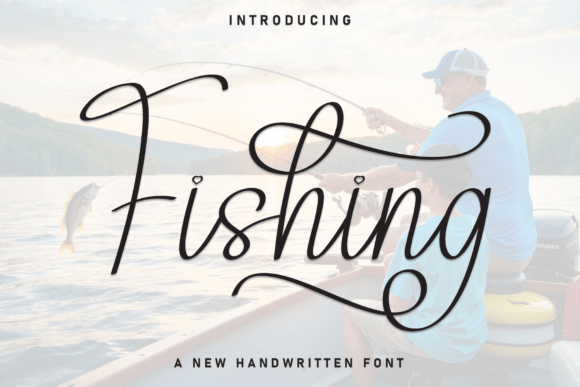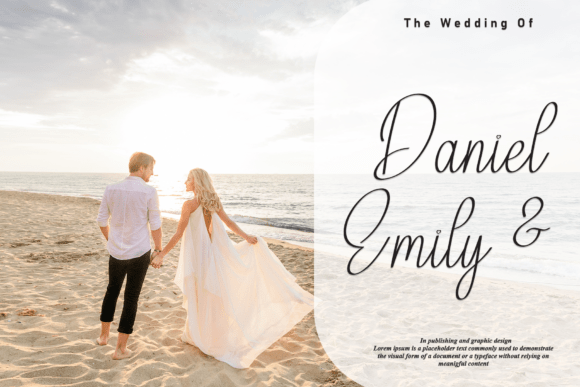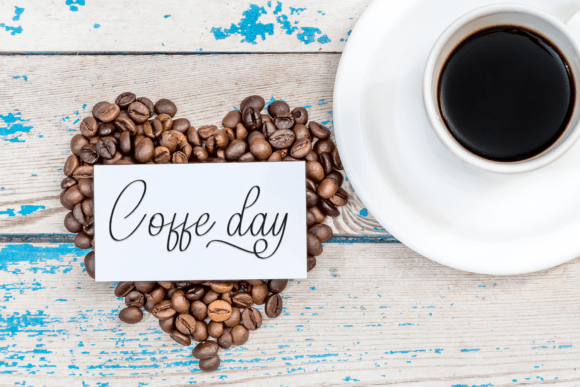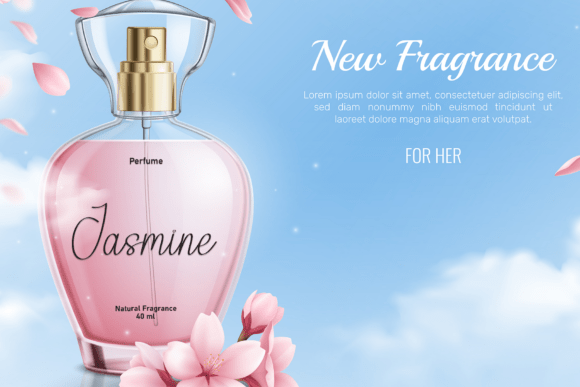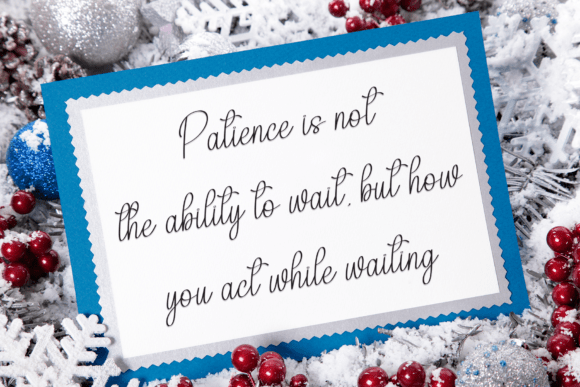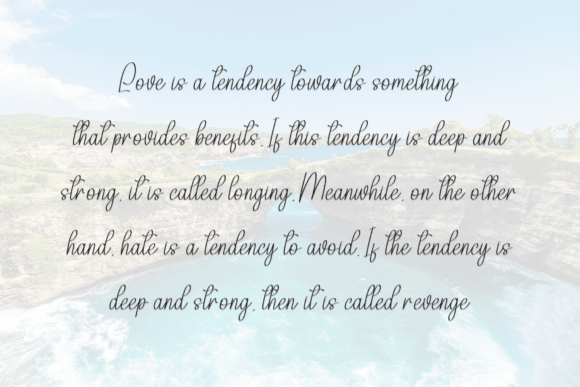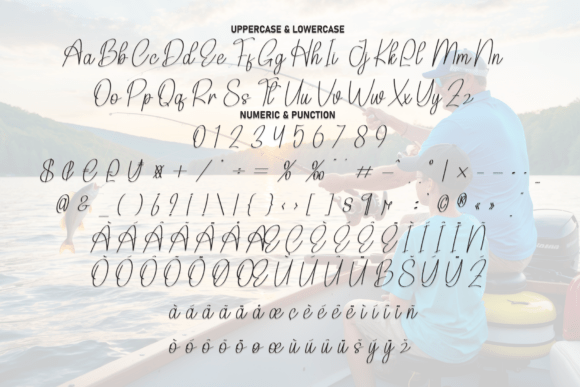
Fishing for Emotions: Unveiling the Captivating World of Fishing Font
Remember the moment when you stumbled upon the perfect font for your wedding invitation? The one that captured the essence of your love story and left your guests in awe? For designers, this moment is a treasure trove of creativity and inspiration. And today, we’re excited to introduce you to a font that will make this moment a reality – Fishing Font, a one-of-a-kind handwritten display font that’s sure to add a touch of tenderness and charm to your designs.
Fishing Font is more than just a font; it’s a tool that breathes life into your creations, lending them emotions and nuances that leave a lasting impression. With its inviting and warm aura, this font is perfect for designers looking to add a sprinkle of fun and whimsy to their designs. Whether it’s a wedding invitation, a heartfelt card, or a personal project, Fishing Font is sure to make your design shine like a radiant beacon of artistic expression.
Fishing Font Key Features
- Unique Hand-Drawn Design: Fishing Font features a distinctive hand-drawn style that captures the essence of fishing and the outdoors.
- Character Set: The font includes a comprehensive set of characters, including uppercase and lowercase letters, numbers, and punctuation marks.
- Legibility: The font’s unique design and carefully crafted letterforms ensure that it remains highly legible even at small sizes.
Fishing Font Review
I recently had the chance to work with Fishing Font, and I must say it’s a unique and intriguing typeface. ✨ The font’s playful, hand-drawn feel immediately caught my attention, and I enjoyed experimenting with its various styles and weights.
Here are some of the things I liked about Fishing Font:
- ✨ Expressive and whimsical feel, perfect for adding a touch of personality to designs
- ✨ Versatile, with a range of styles and weights to suit different design needs
- ✨ Excellent for creating eye-catching headings and titles
- ⚠️ Limited legibility at smaller font sizes, which can make it challenging to read
- ⚠️ May not be suitable for body text or large blocks of text, where readability is crucial
- ⚠️ Some characters may not be as polished or refined as others, which can be distracting
Overall, I think Fishing Font is a great addition to any designer’s toolkit, but it’s essential to use it judiciously and with consideration for the design context. When used effectively, it can add a touch of magic to a design. However, when overused or misused, it can quickly become overwhelming.
Tips for Getting the Most Out of Fishing Font
Here are a few tips for getting the most out of Fishing Font:
- Use Fishing Font for headings and titles to add a touch of whimsy to your design.
- Combine Fishing Font with other fonts to create a visually interesting design.
Common Use Cases for Fishing Font
Fishing Font is perfect for:
- Outdoor and nature-themed designs.
- Summer and beach-themed designs.
- Children’s educational materials and activities.
Alternatives to Fishing Font for Designers
Great Vibes is a beautiful, handwritten font that is perfect for creating a whimsical and carefree atmosphere in your designs. It’s ideal for use in titles, headings, and other text elements where you want to add a touch of elegance and sophistication. Compared to Fishing Font, Great Vibes has a more refined and polished look, making it a great choice for designers who want to add a high-end feel to their work.
Carolyna Pro is a modern, script font that is perfect for creating a sense of luxury and sophistication in your designs. It’s ideal for use in titles, headings, and other text elements where you want to add a touch of glamour and elegance. Compared to Fishing Font, Carolyna Pro has a more refined and sophisticated look, making it a great choice for designers who want to add a high-end feel to their work.